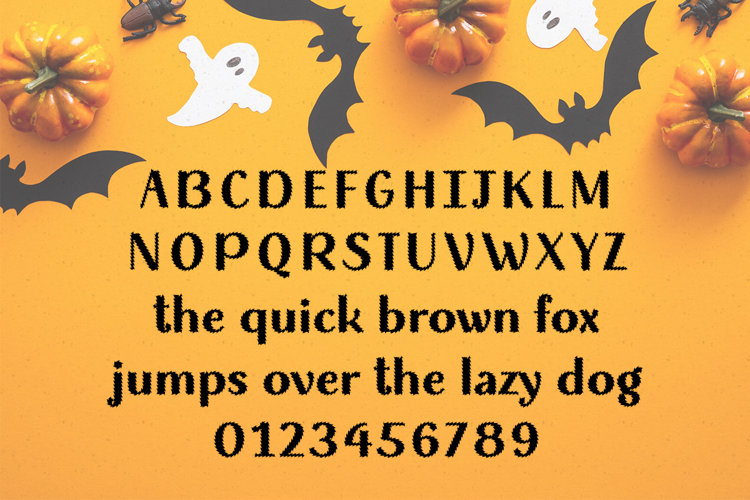
Wicked Halloween Font
About Wicked Halloween Font
Wicked Halloween is a bold and spooky decorative font. Add it to your Halloween crafts, horror movie posters, t-shirts and anything else that requires a spectacular look.